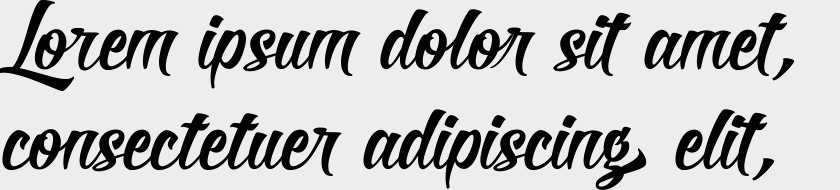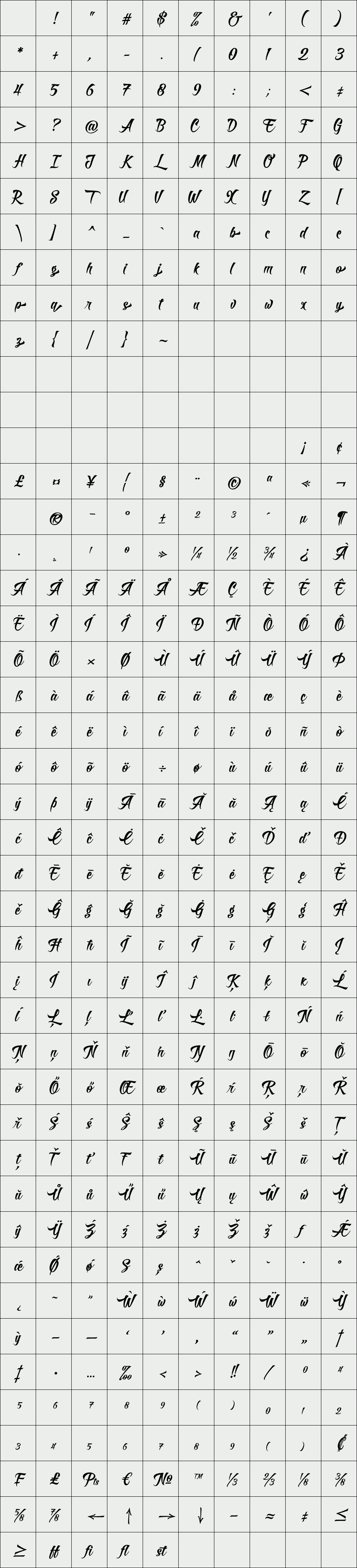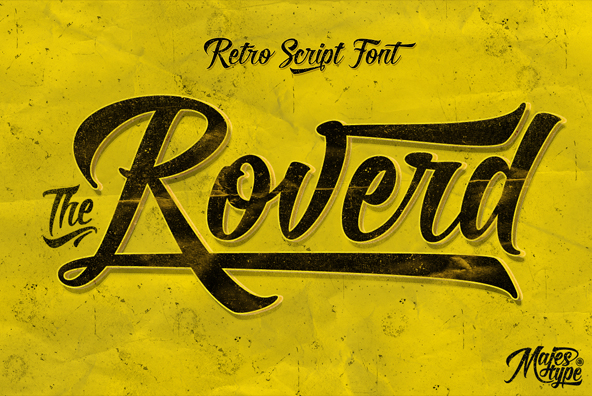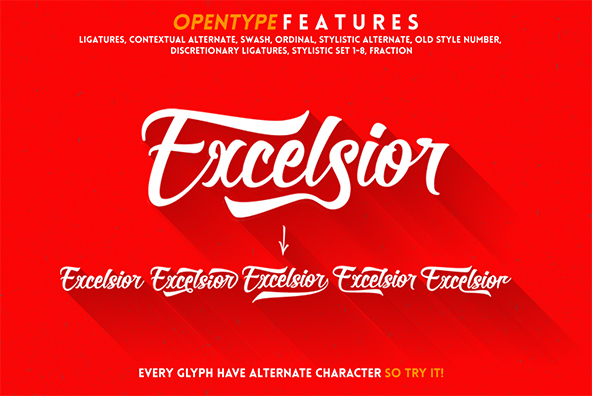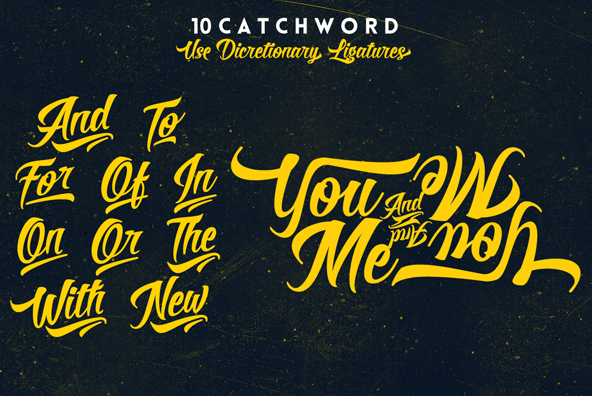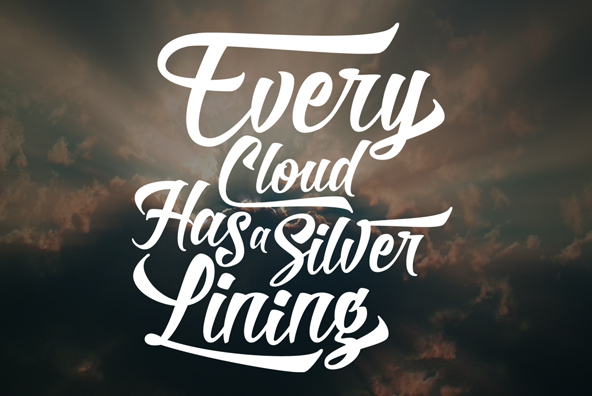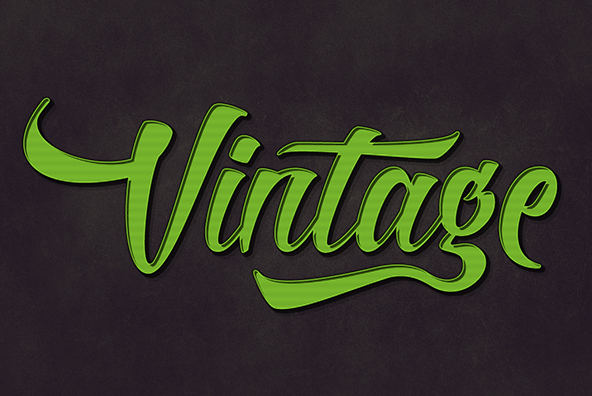
Roverd
/ Roverd Standard
Roverd is a retro script font that comes with over 700 glyphs and is equipped with a host of OpenType features, making it a breeze to customize the feel of your designs. An ideal font for t-shirts, logos, posters and more.
- Every glyph have alternate character. So, try it to show another glyph of this font.
- Use Discretionary Ligatures to show Catchword.
- Have 5 alternate "Ampersand and Underscore" in Stylistic alternate and Stylistic Set 1-5.